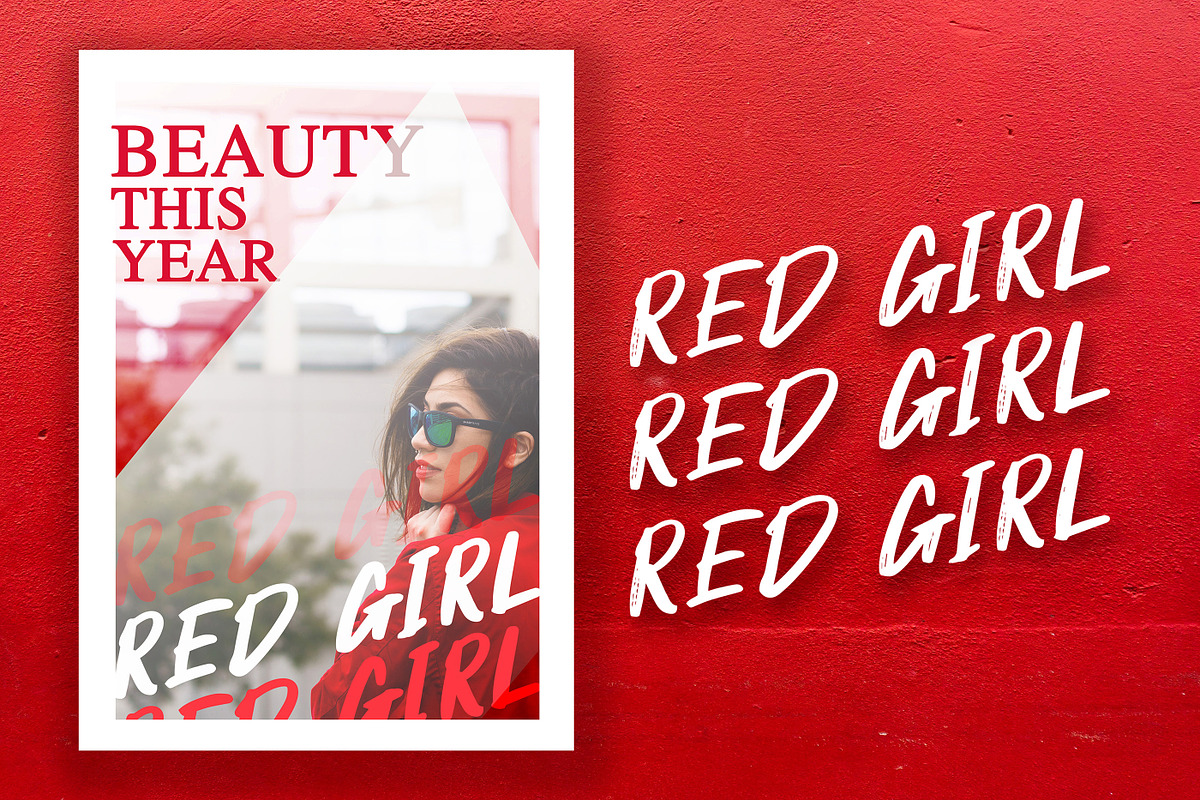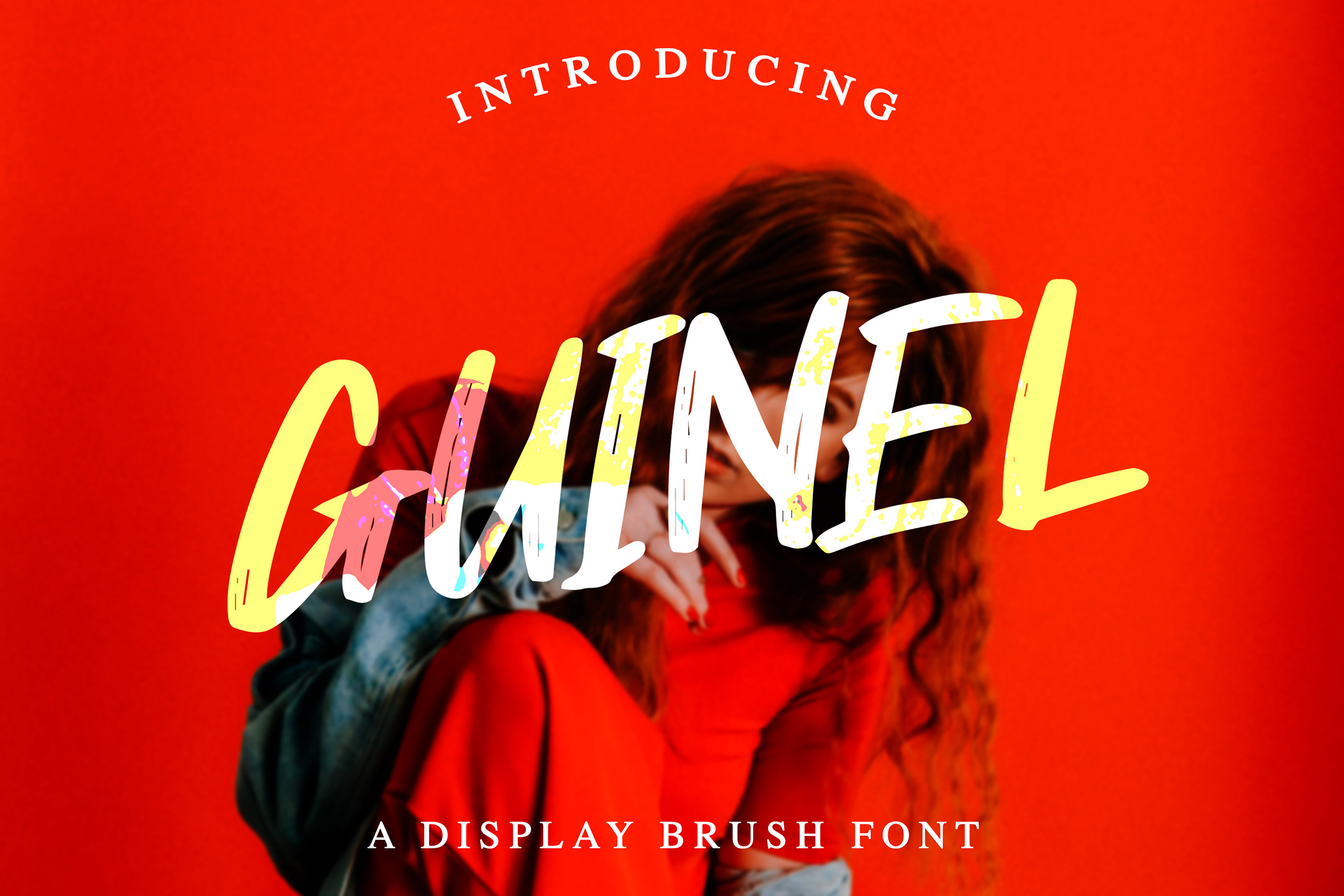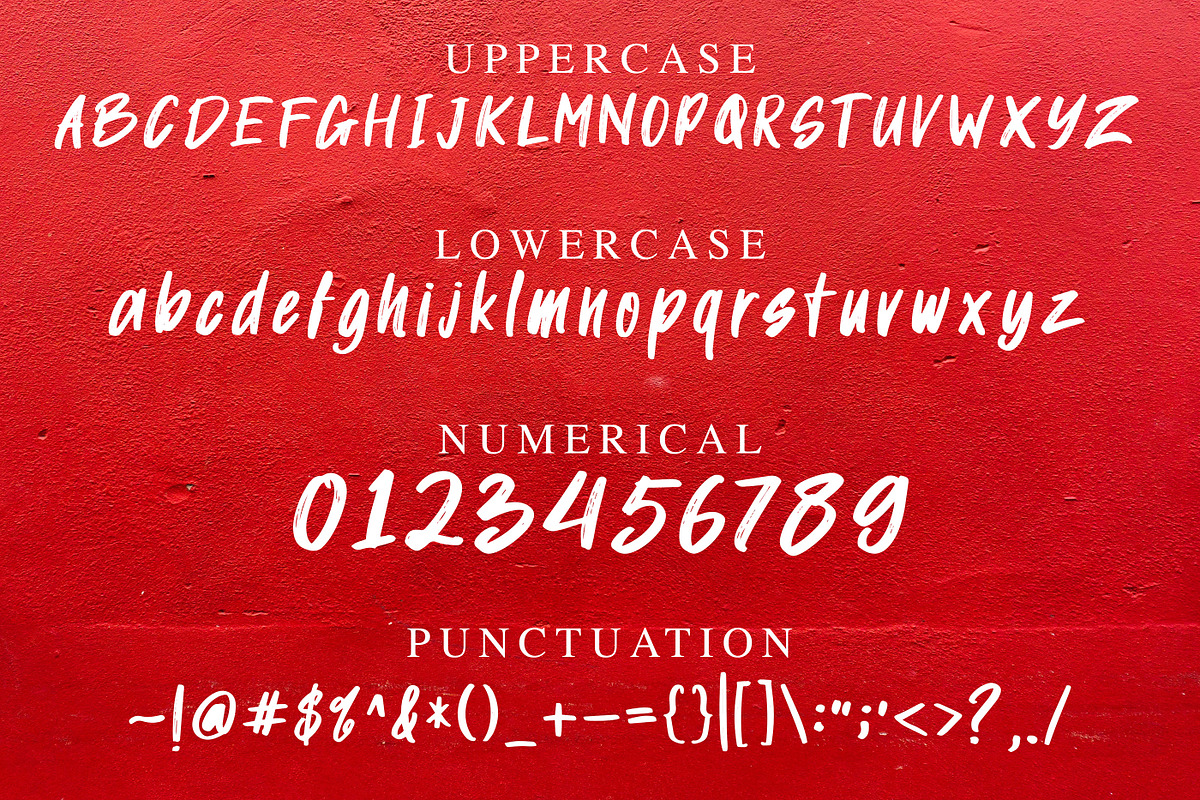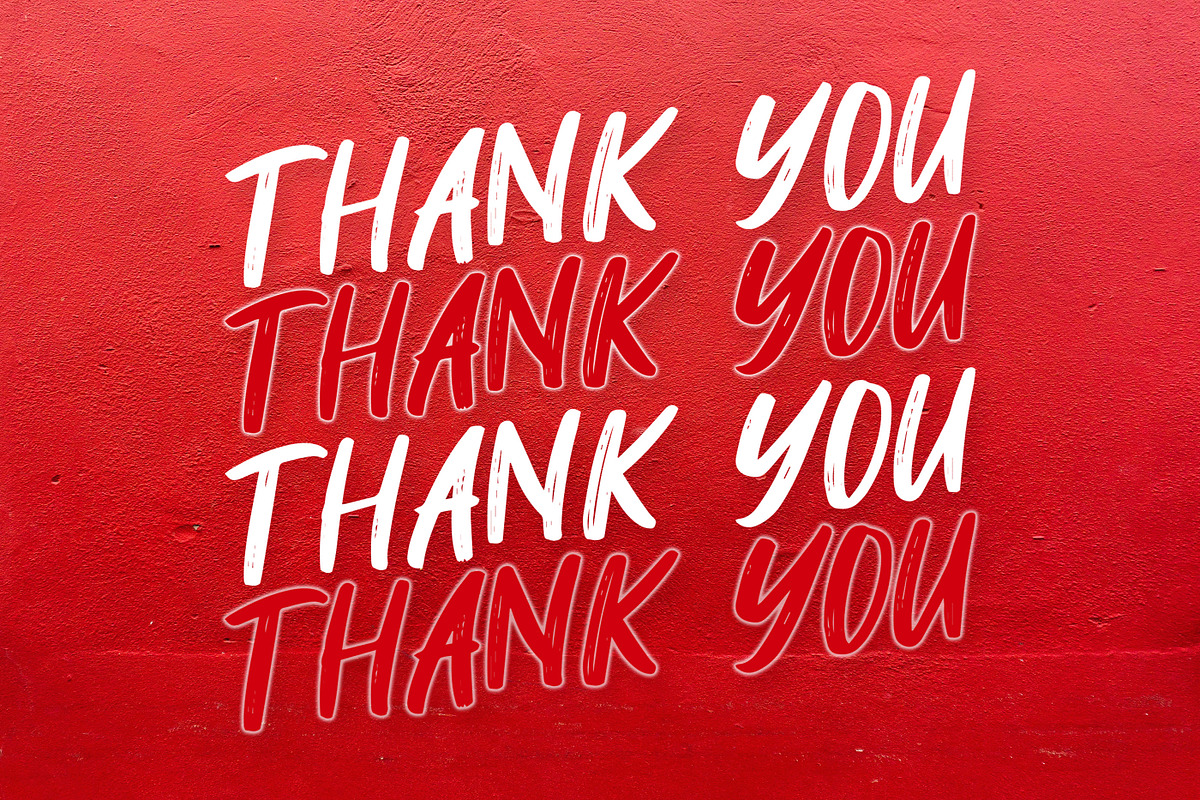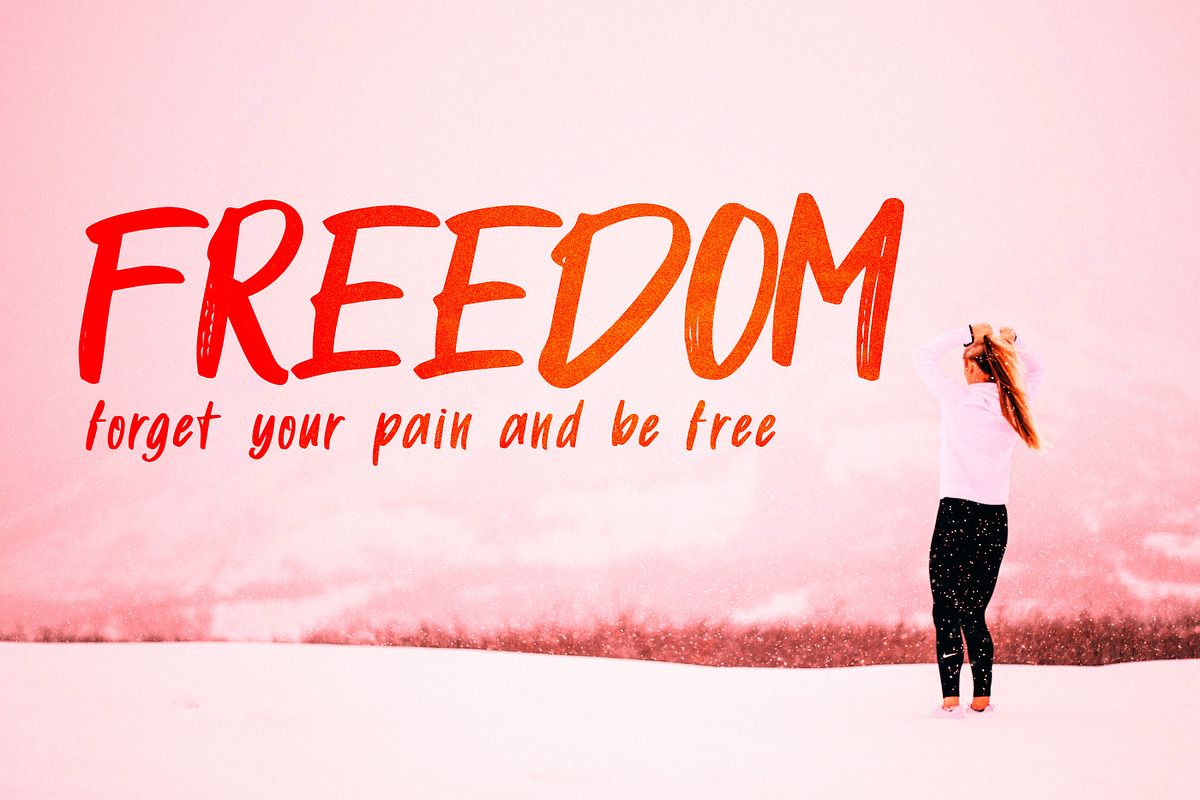
GUINEL - Brush Font
Guinel is a display font with hand brush style. Is a font with a hand brush style that is made as if it were handwritten. Can be applied to support the graphic appearance of the product to be more attractive and unique. This font is suitable for making previews and covers, logo designs, shirt designs, and other graphic needs.
Guinel font with uppercase characters A-Z, lowercase characters a-z and punctuation